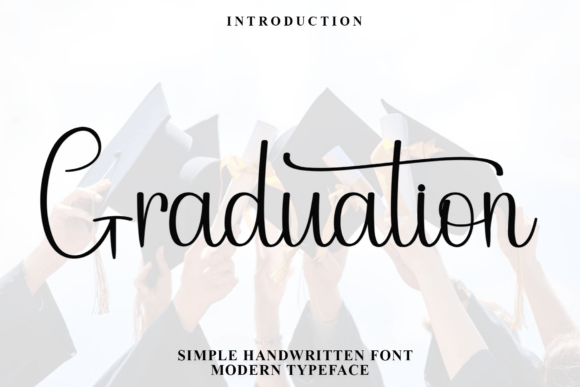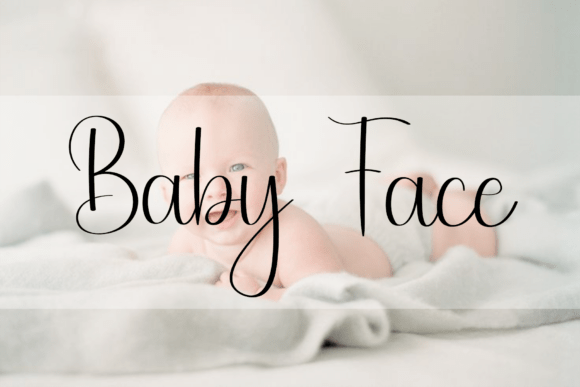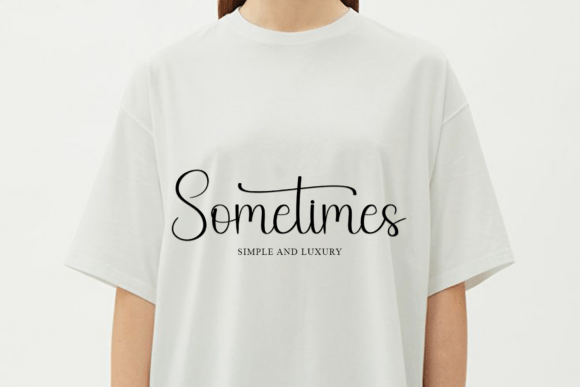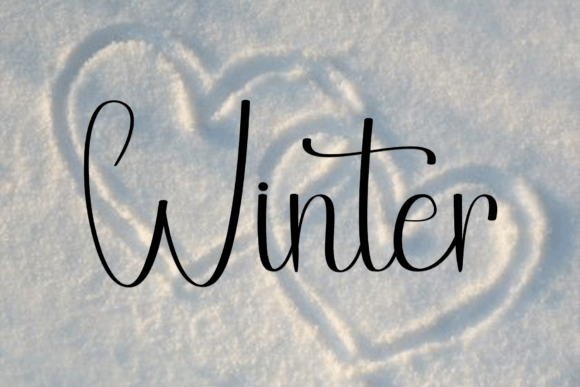
Graduation Font
About the Graduation Font
Presenting Graduation Font, a unique and stylish typeface that will make your work stand out. Graduation is a festive and merry typeface that captures the spirit of the holiday season. With its decorative elements and whimsical flair, it adds a touch of enchantment to your designs. Perfect for greeting cards, gift tags, and holiday-themed projects, this font brings a cheerful and nostalgic ambiance to your words. Let your typography shine with the magic of Beautiful Font!
Graduation’s playful, decorative style makes it ideal for headlines, short celebratory messages, and branding projects requiring a lighthearted touch. It excels in applications like posters, invitations, and packaging for products aimed at a younger demographic or those with a festive, whimsical brand identity. However, its ornate details make it unsuitable for body text or UI elements where readability is paramount; long stretches of Graduation would be visually overwhelming and difficult to read.
Consider pairing Graduation with a clean sans-serif like Open Sans for balance, or a classic serif like Garamond for contrast and sophistication. For a more playful feel, a rounded geometric sans-serif such as Poppins could work well. These pairings provide visual weight and readability where Graduation lacks, allowing the decorative font to shine as an accent.
The overall personality of Graduation is undeniably festive and cheerful, conveying a sense of joy and lighthearted celebration. Its whimsical forms and decorative flourishes are best suited for projects that require a touch of whimsy and visual charm.
Graduation Font Usage Examples
Graduation Font Example